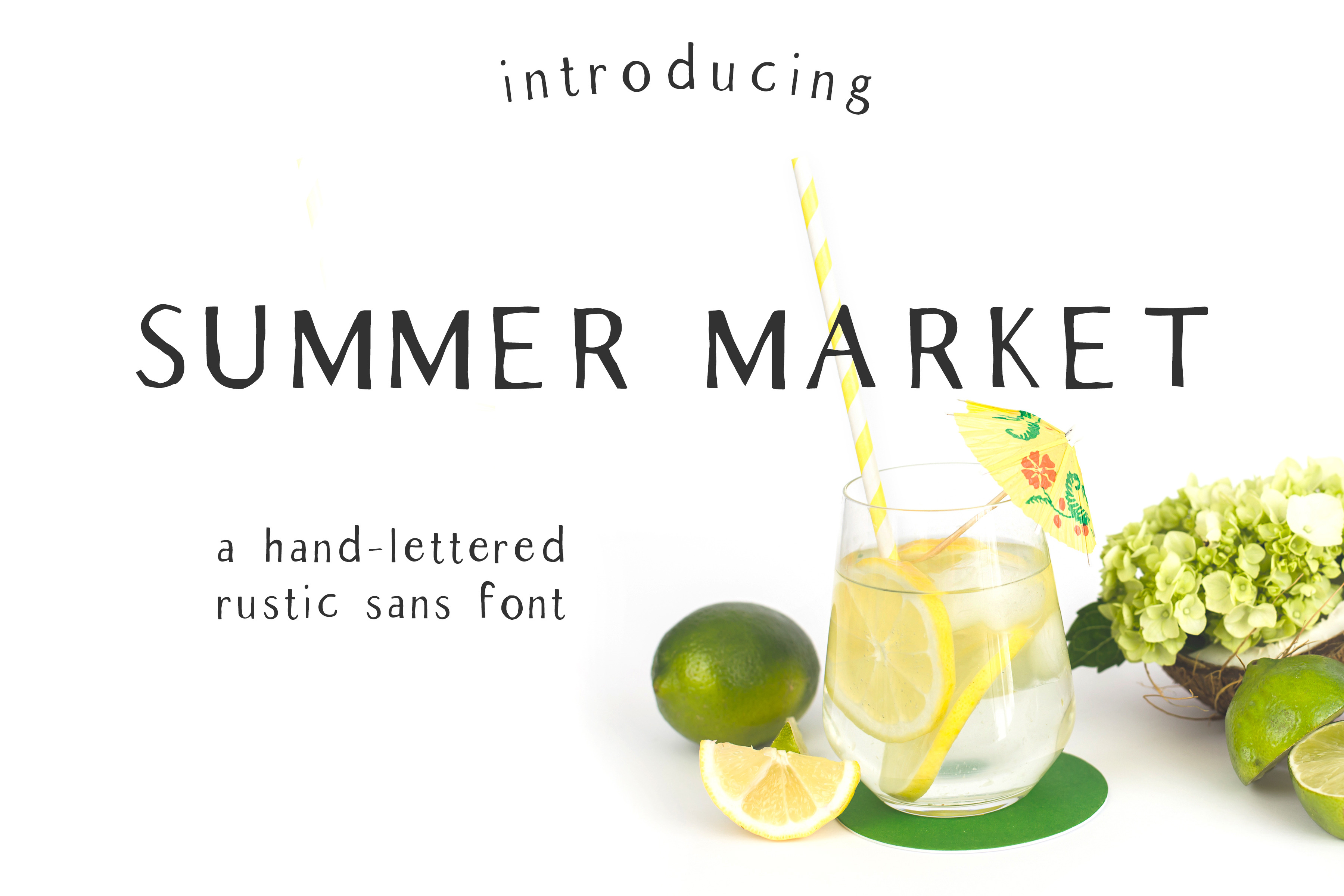
Summer Market - Rustic Font
Summer Market is the sister font of Spring Market. Equally as rustic & farmhouse-inspired -- just without the serifs :) Summer Market has that imperfect, slightly rough edge with a slightly feminine quality. Summer Market is perfect for logos + branding, product design, invitations, & more. Comes with some language support.